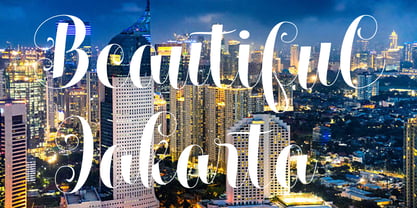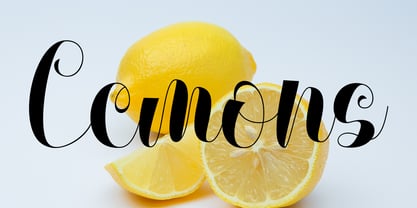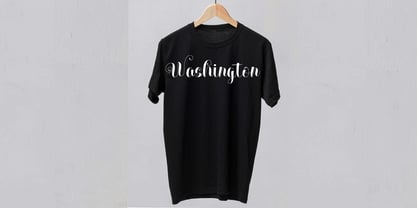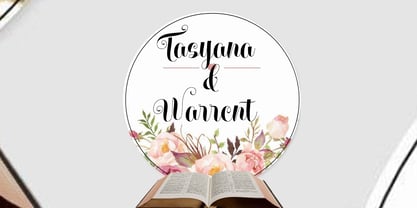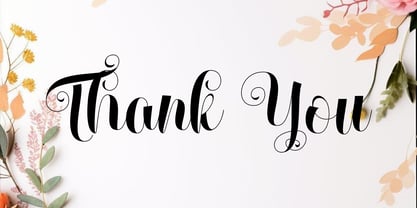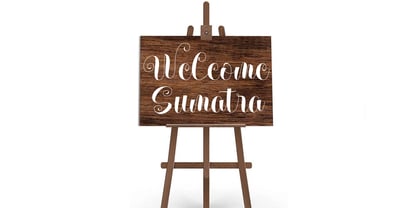
Soetham Script
por Shape Studio
A família de fontes Soetham Script foi desenhada por Teuku Saifullah e publicada pela Shape Studio. Soetham Script contém 1 estilos. Saiba mais sobre esta família
Soetham Font is interesting because the typeface is pleasing to the eye, clean, feminine, sensual, glamorous, simple and very easy to read, because there are many fancy letter connections. I also offer a number of decent stylistic alternatives for multiple letters. Classic styles are very suitable to be applied in various formal forms such as invitations, labels, restaurant menus, logos, fashion, make up, stationery, novels, magazines, books, greeting / wedding cards, packaging, labels or all kinds of advertising purposes .Soetham has alternative characters, including support for multiple languages. With OpenType features with an alternative style and elegant binding. The OpenType feature does not work automatically, but you can access it manually and for the best results required for your creativity in combining these Glyph / Character variations.
Designers: Teuku Saifullah
Fundição: Shape Studio